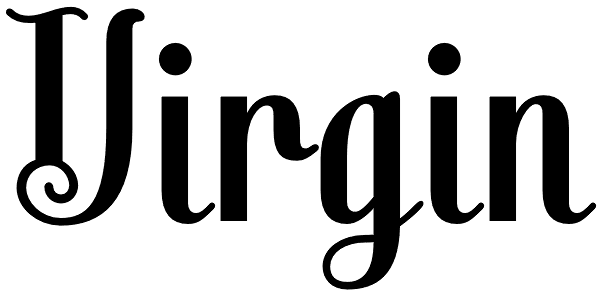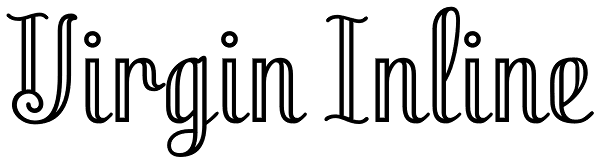
Virgin
Virgin is a hybrid typeface with a Victorian spirit, based on script forms of Romanesque ornamentation. With his rich variety of stylistic forms, ornaments and catchwords, Virgin is a chance to create completely new texts, varied and elegant. About...
Virgin Script Basic
Virgin Ornamento
Virgin
Virgin Inline